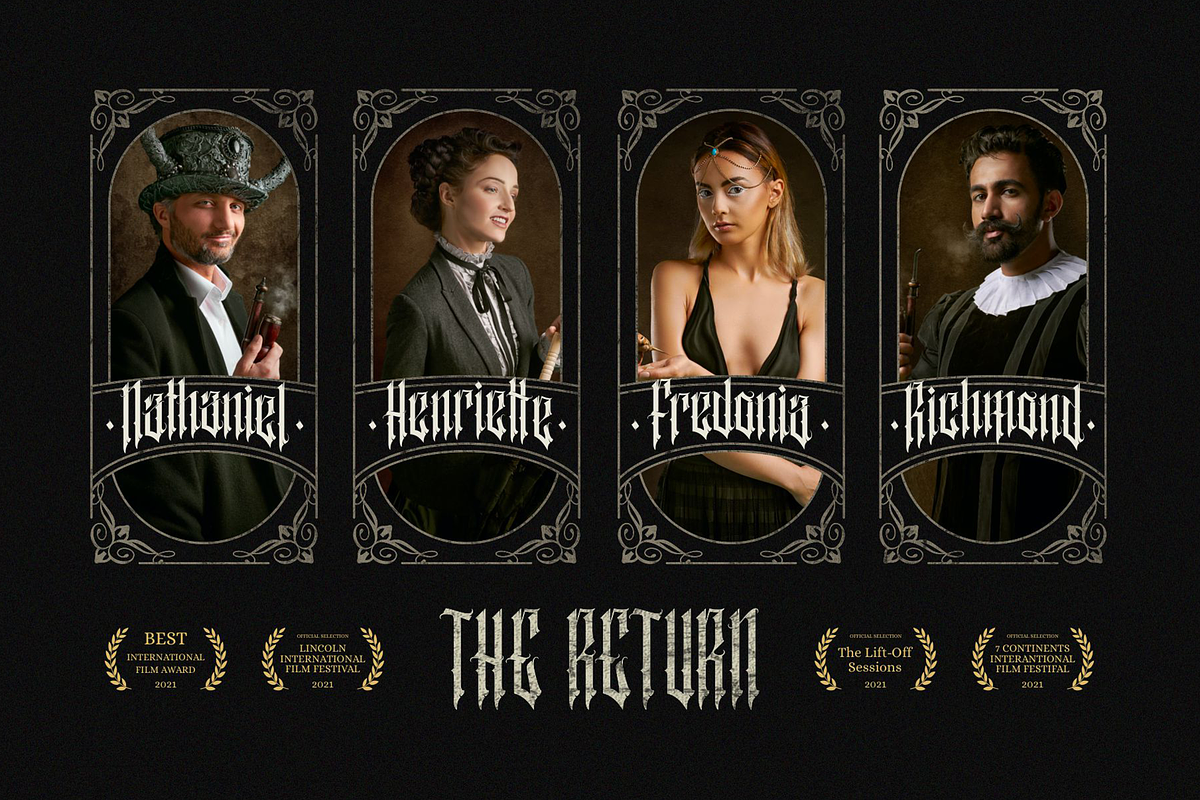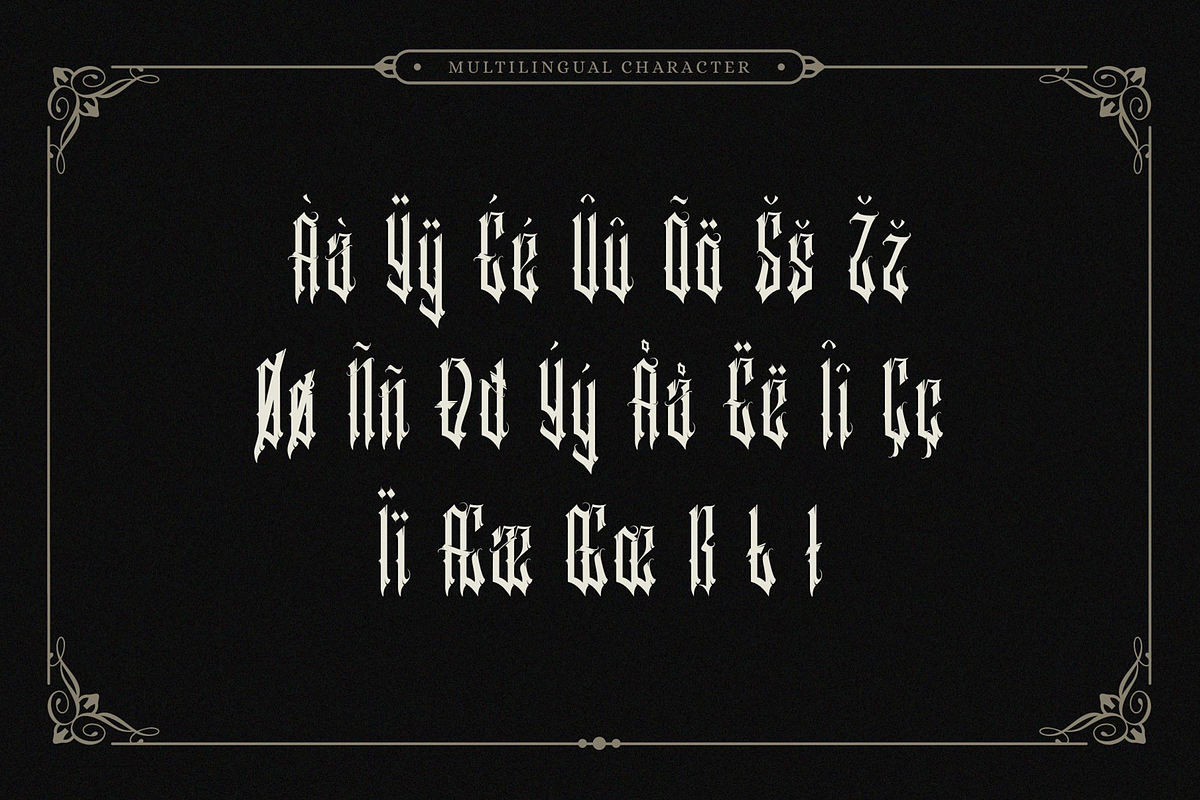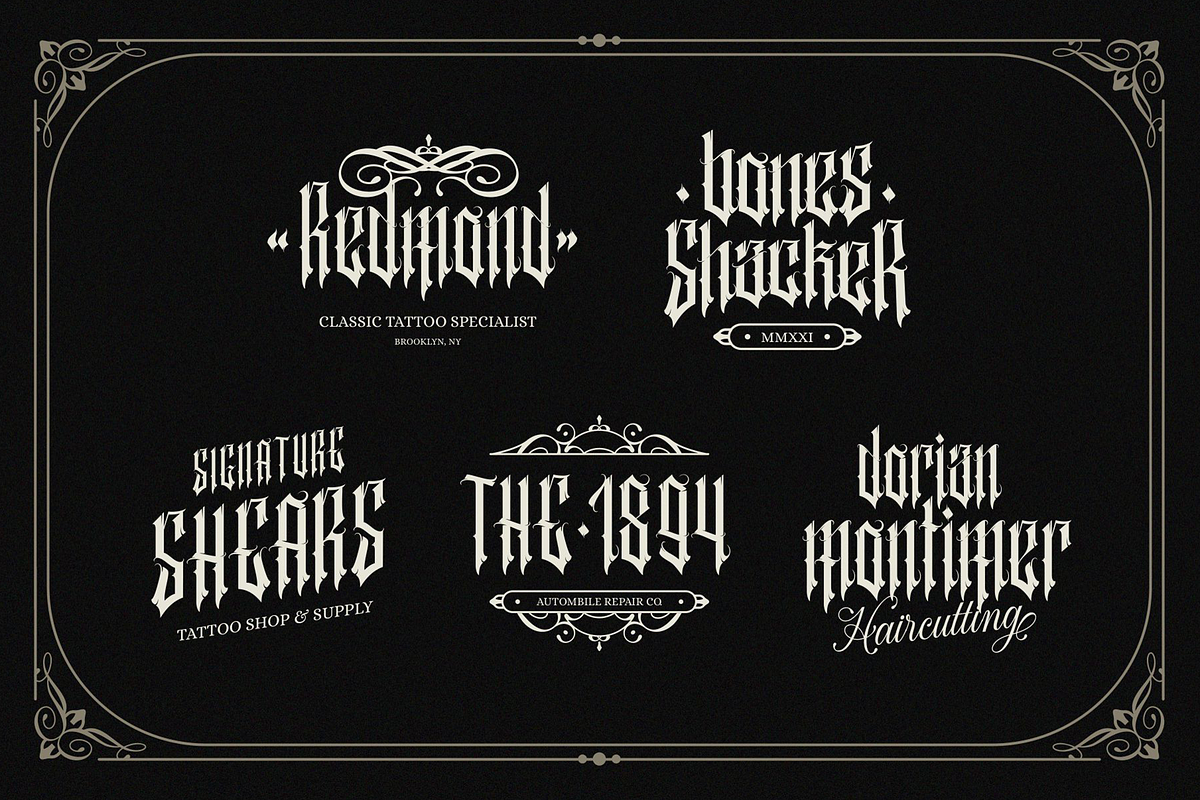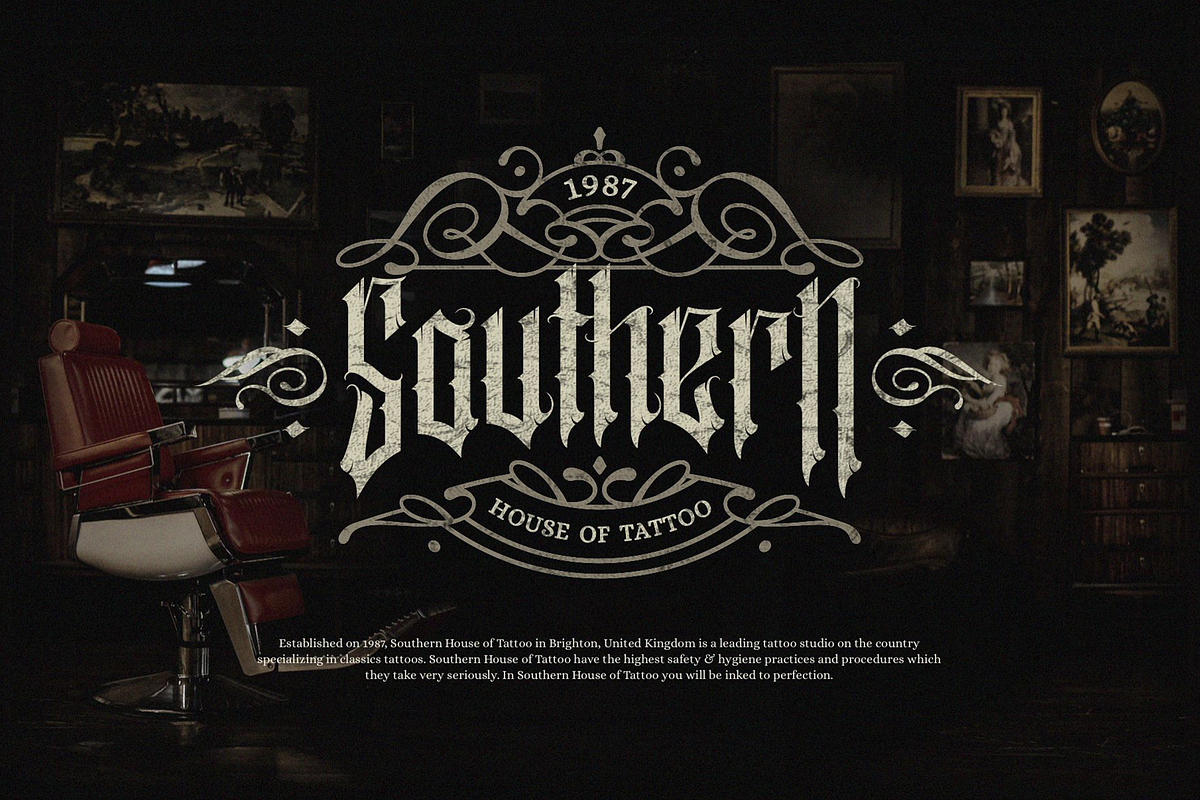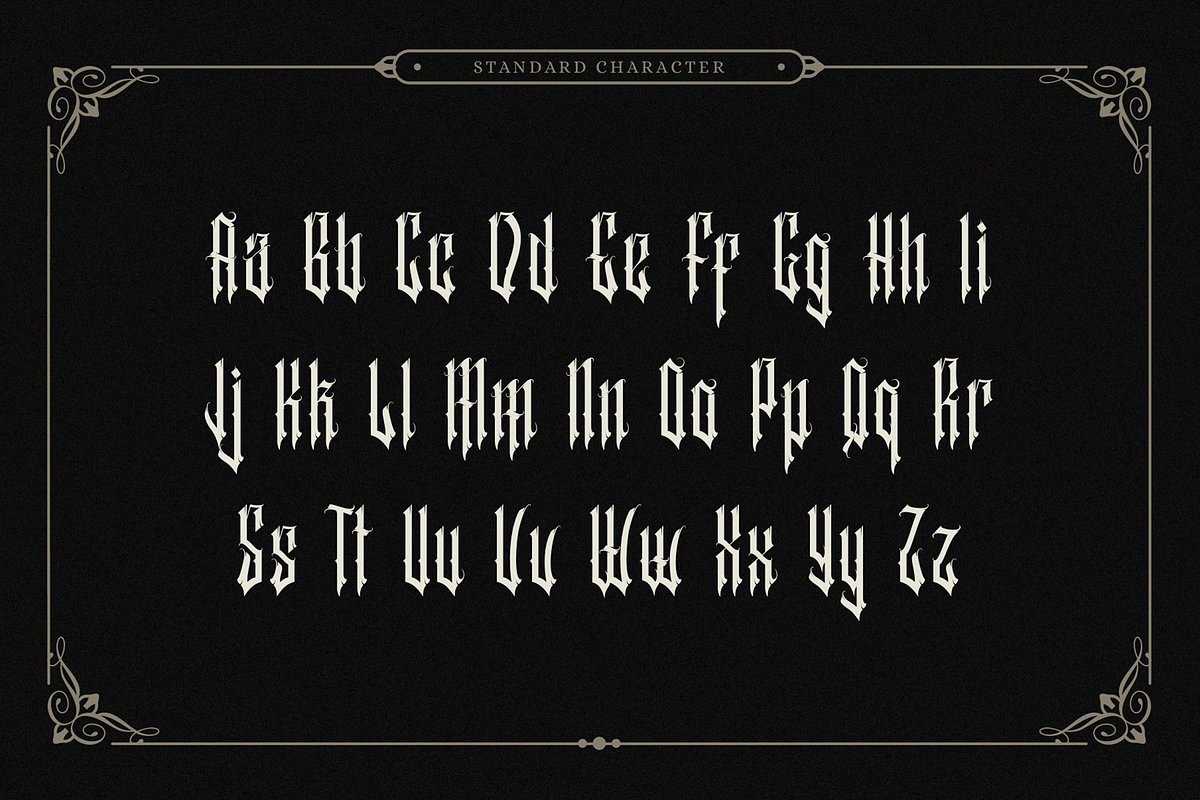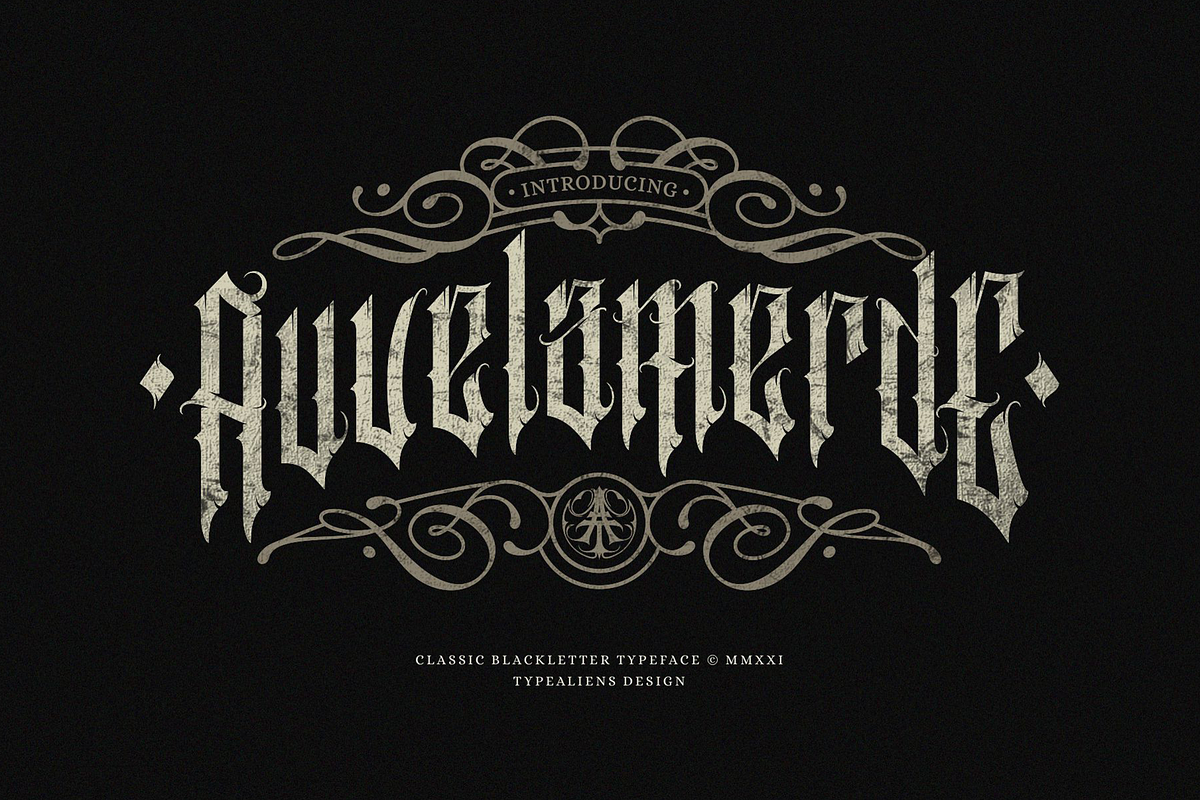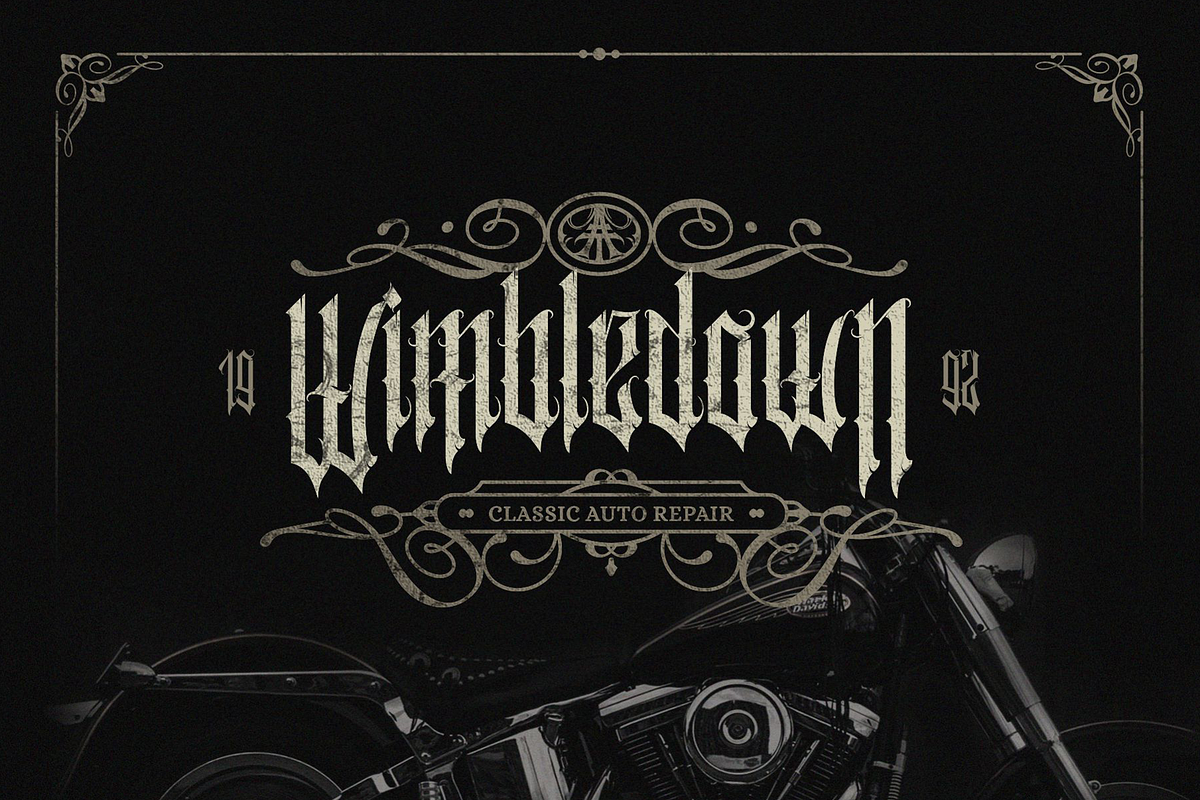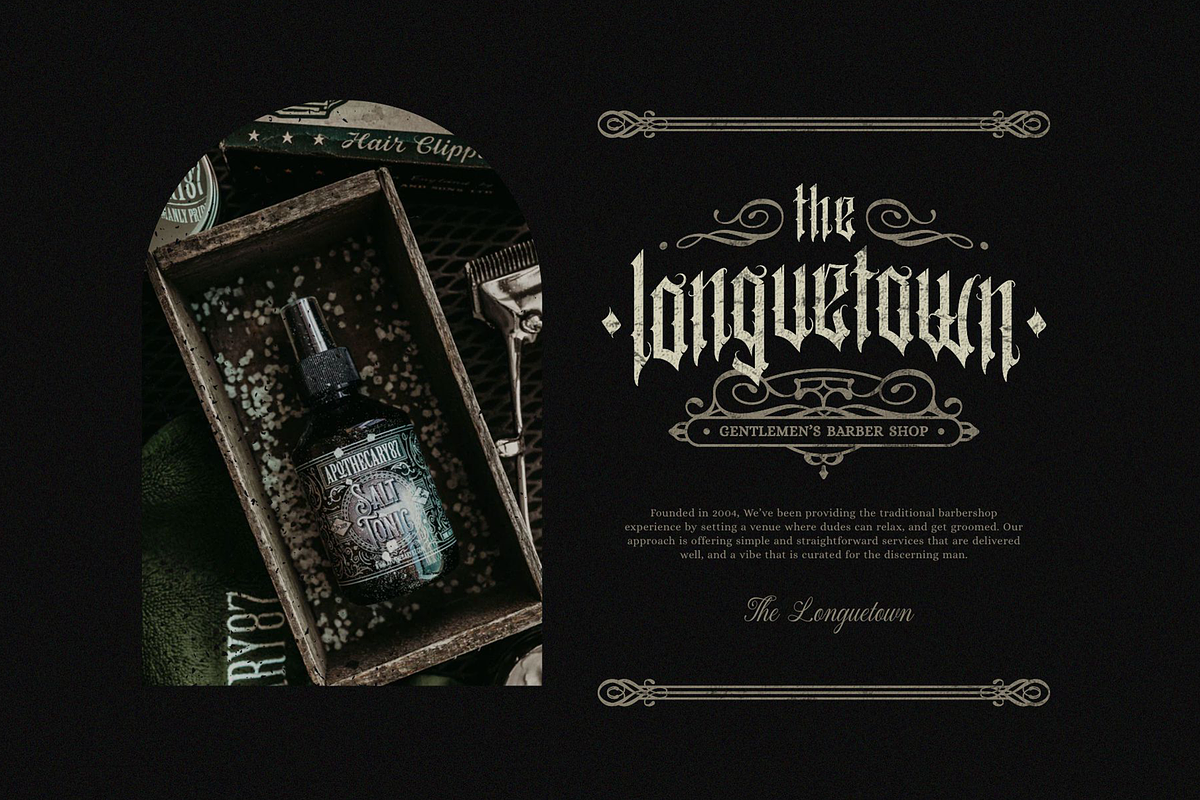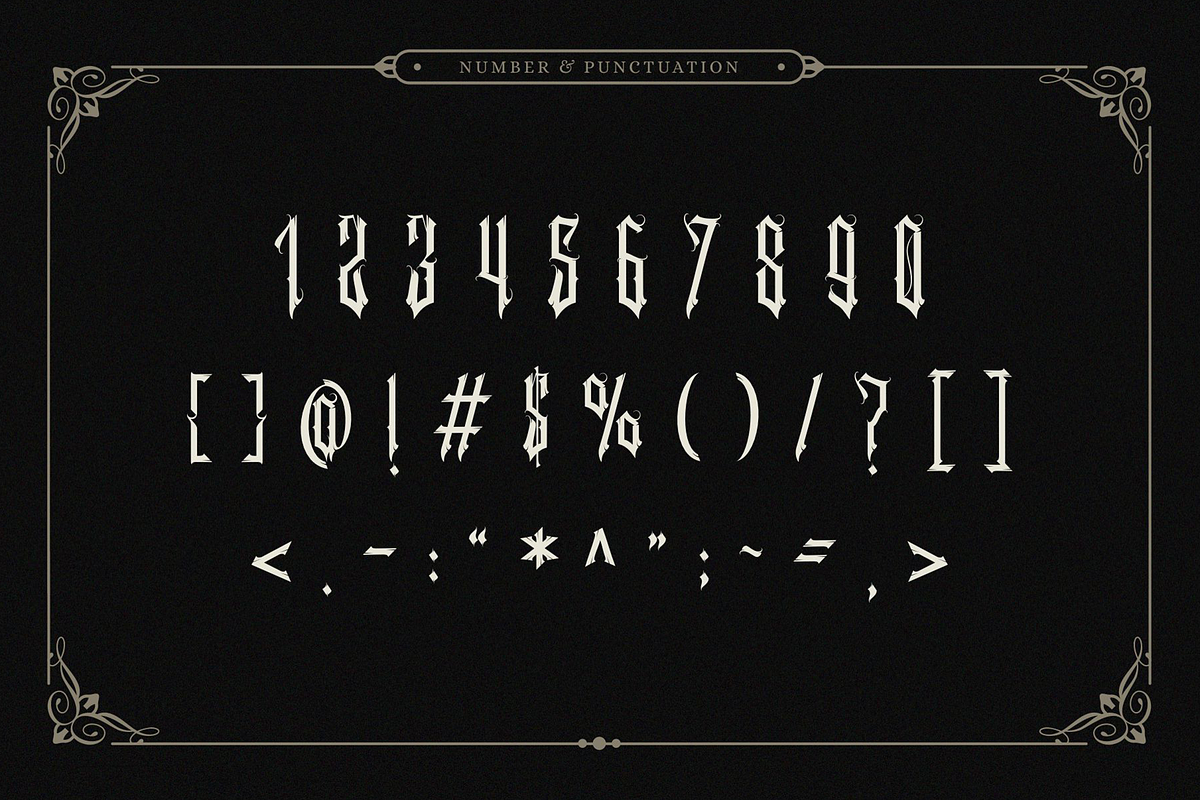
Auvelamerde
AUVELAMERDE
Auvelamerde this is our newest blackletter font, it features no hooks with close enough spacing, with tall letters so that it looks very close.
With the basic of the Blackletter Classic Font but modified so that it becomes a fairly new feature in the world of blackletter.
It will be very suitable for vintage-style designs, classic logos, vintage label designs etc. It's very beautiful and looks dark.